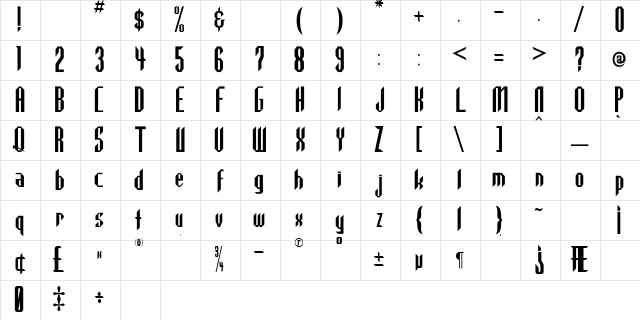
Highlander Regular Free Font
Highlander Regular
Highlander Family
Highlander Regular
Design Context for Highlander
Highlander is a composed and adaptable typeface that performs quietly and consistently across a wide range of design contexts.